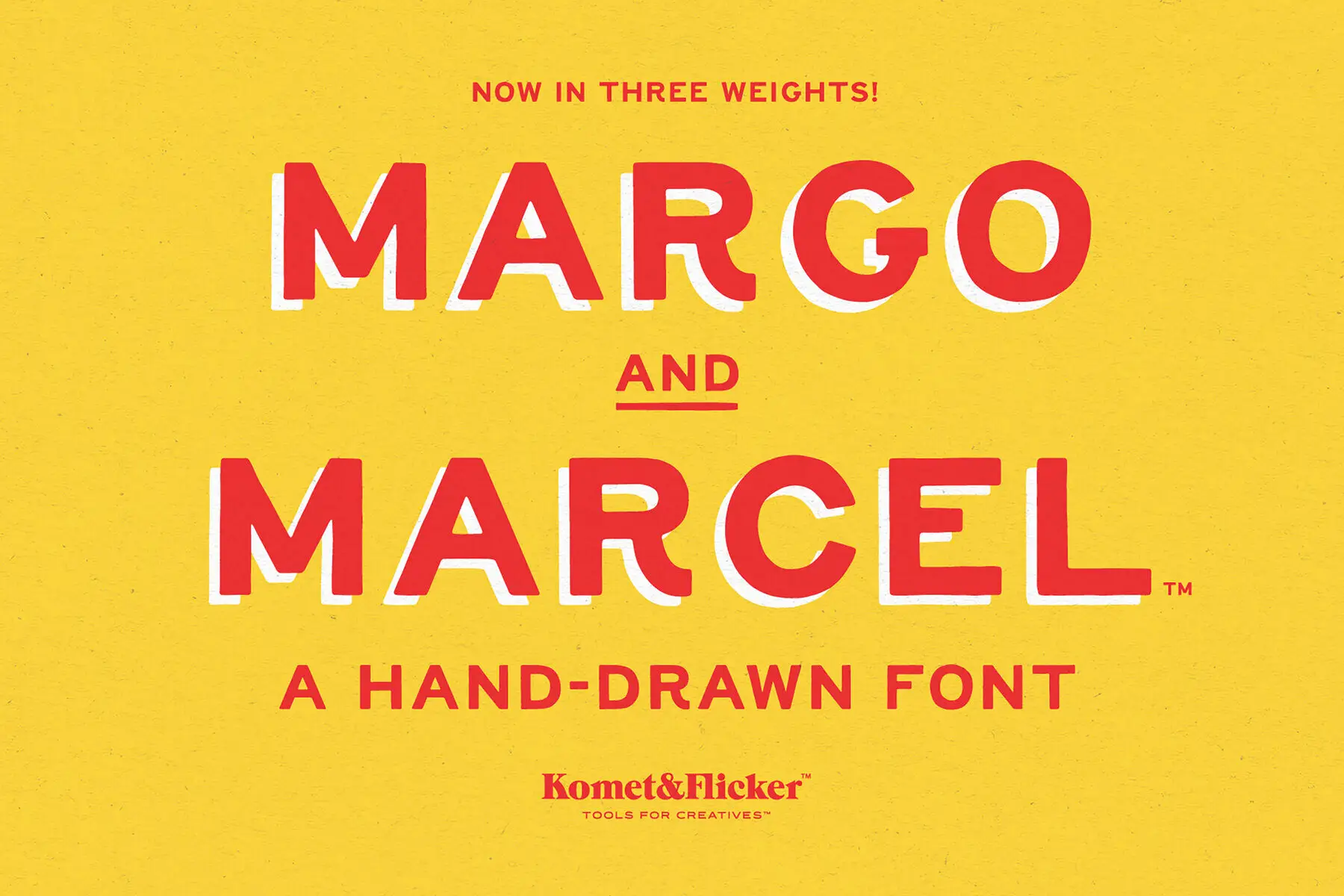
Margo and Marcel Font
Margo and Marcel Light
Margo and Marcel Medium
Margo and Marcel Bold
Meet Margo and Marcel, a delightful all-caps font that exudes a friendly and approachable aura. This hand-drawn typeface radiates a warm, human touch, making it ideal for playful branding and relaxed layouts. Its organic and slightly imperfect lines convey a unique personality, while alternate versions of select characters, such as C, G, I, J, K, Q, R, and S, enhance versatility. Additionally, a set of 20 custom connecting words like "AND," "THE," and "WITH" effortlessly integrates extra flair into your designs. Features: The extra custom glyphs are easily accessible in Illustrator's “Type → Glyphs” panel. In Photoshop, find them through "Type → Panels → Glyphs Panel."Margo and Marcel: All Caps Charm with a Human Touch